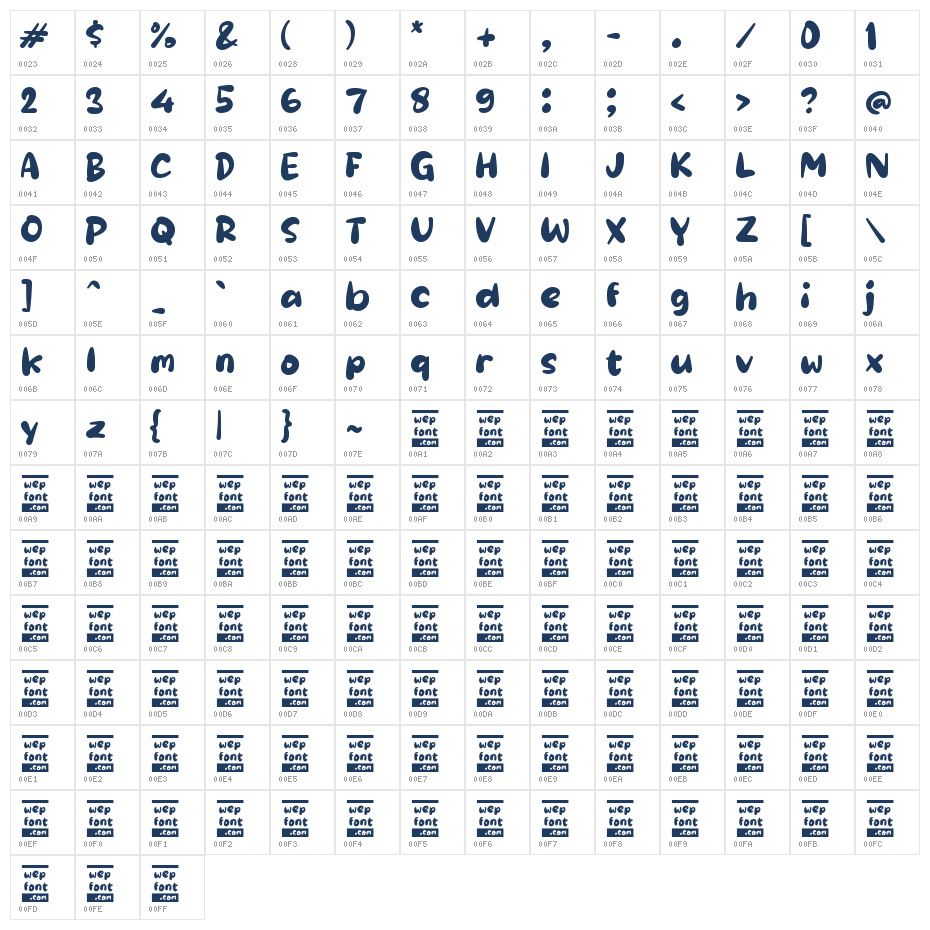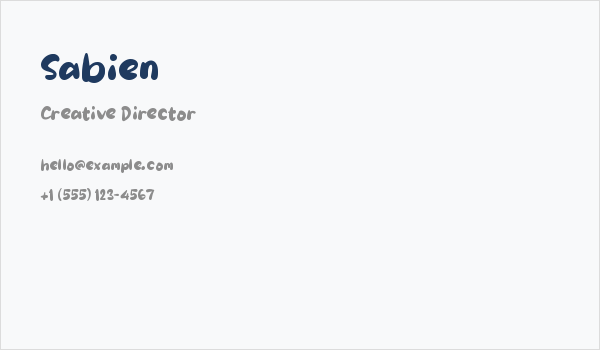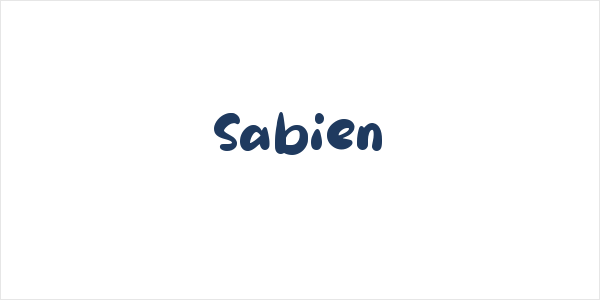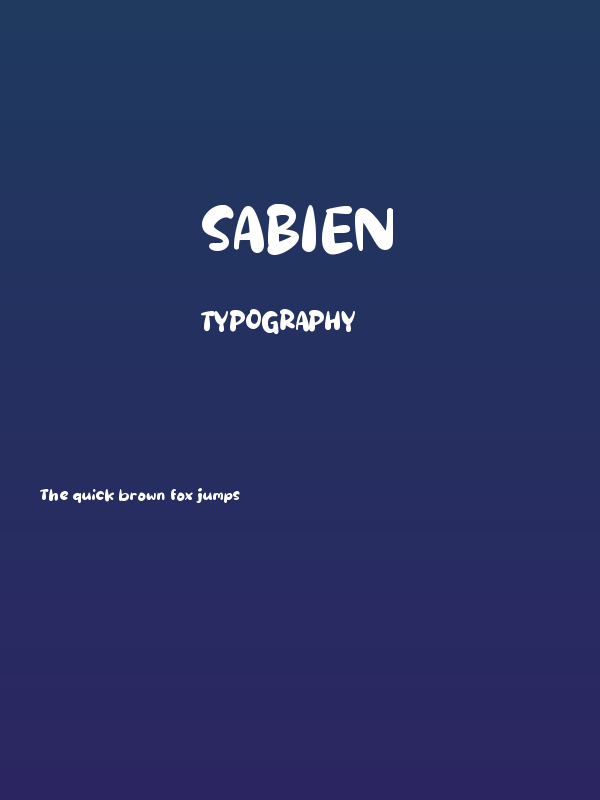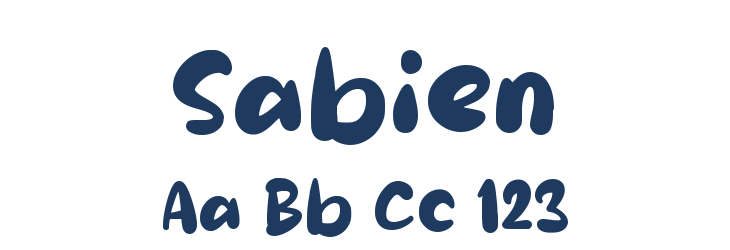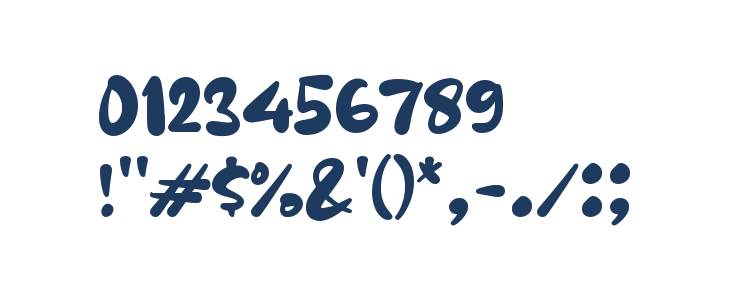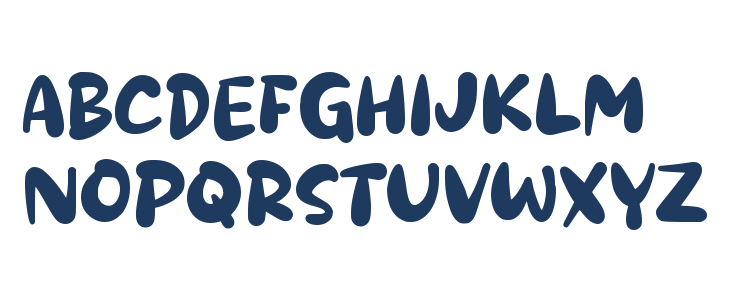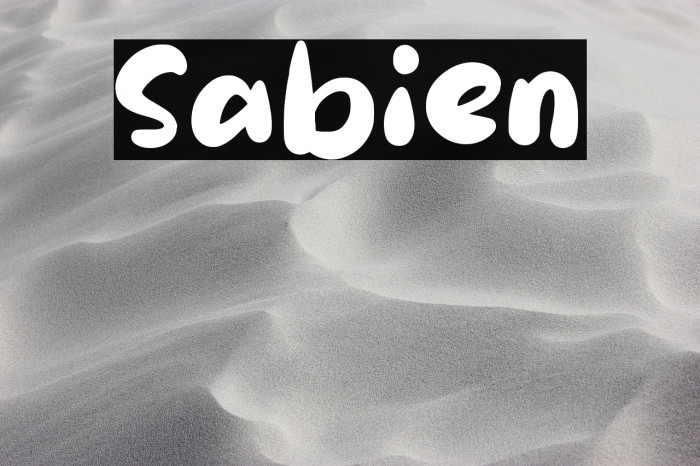
Sabien Font
Sabien Description
A playful, rounded, handwritten style font with a casual and friendly appearance.
SABIEN UPPERCASE
SABIEN LOWERCASE
SABIEN OTHER CHARS
| Overall Style | Casual, Playful, Friendly |
| Use Case | Headlines, Posters, Children's materials, Social media |